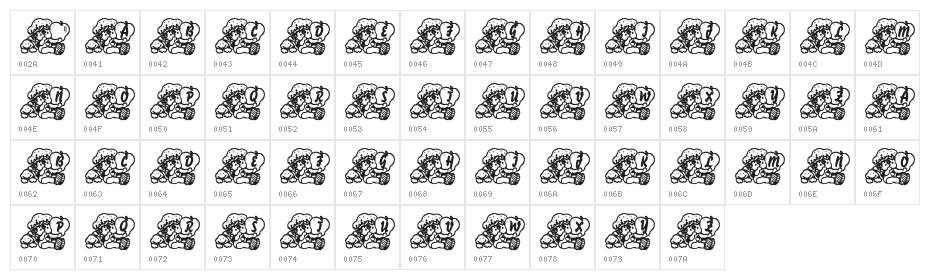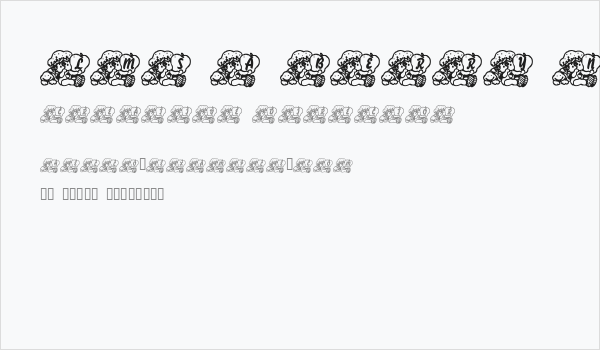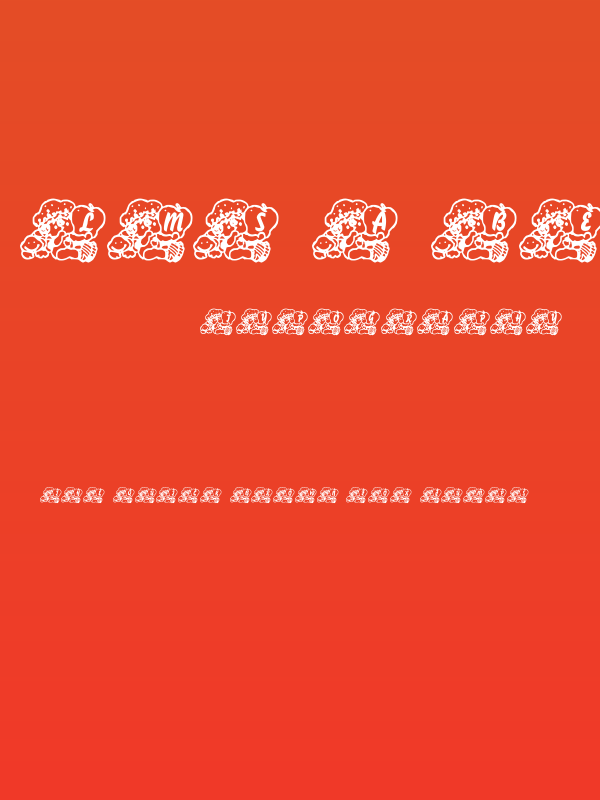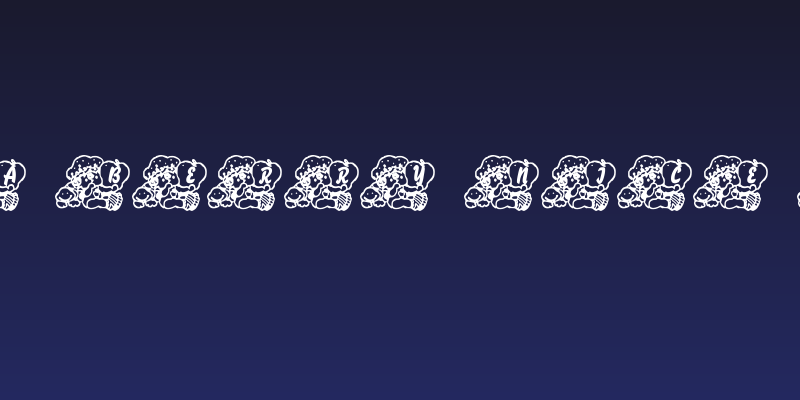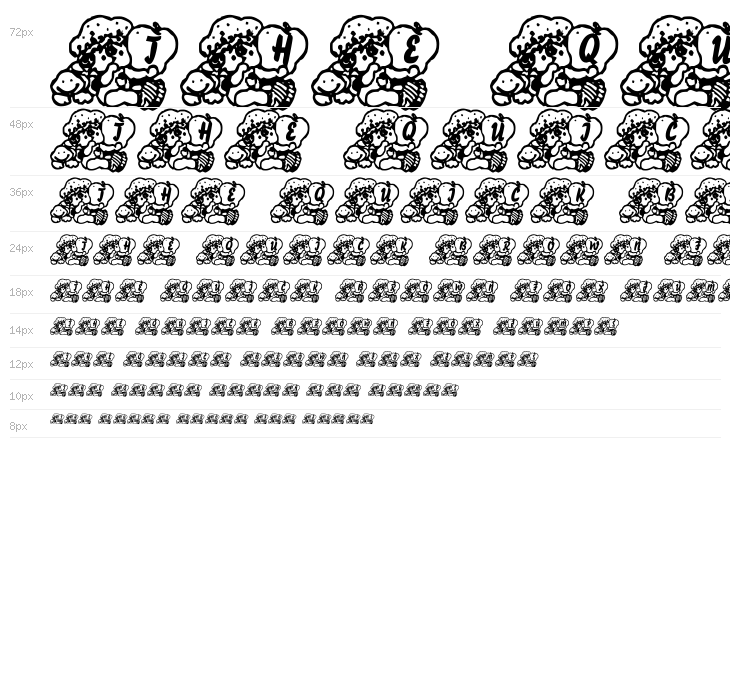
LMS A Berry Nice Baby Font
LMS A Berry Nice Baby Description
This font features playful, cartoon-style characters that are integrated into a whimsical design. Each letter is creatively embedded within an illustration of a cute, cuddly bear, giving it a unique and charming appearance. The font is highly decorative, with each character having a distinct personality, making it ideal for projects that require a fun and lighthearted touch. The intricate details in the bear illustrations add a layer of complexity and visual interest, making it stand out in any design. This font is perfect for children's projects, playful branding, or any creative endeavor that seeks to evoke a sense of joy and innocence.
| Proposed Projects | Ideal for children's books, playful branding, greeting cards, and whimsical posters. |